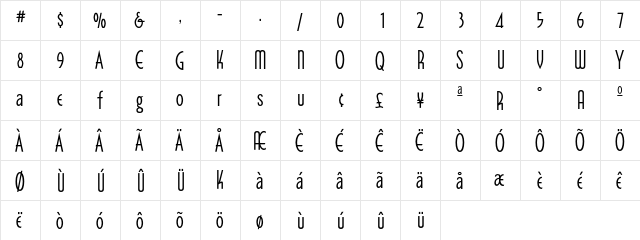
AviatorSGA Light
Design Context for AviatorSGA Typeface
AviatorSGA takes a measured approach to typography — its balanced proportions and neutral character make it a reliable workhorse for both digital and print work. Its slender proportions lend an understated elegance to any composition.
Pro Tip: Pair AviatorSGA with a font of contrasting weight or personality to build a more expressive typographic hierarchy.